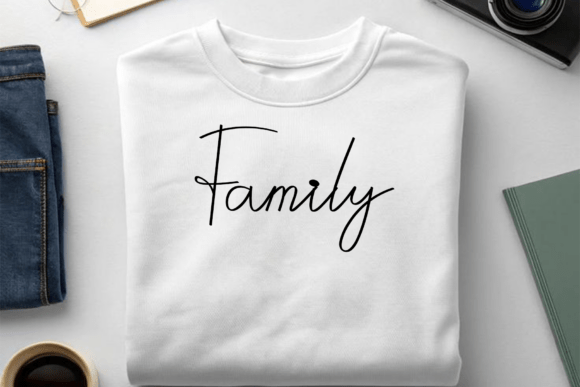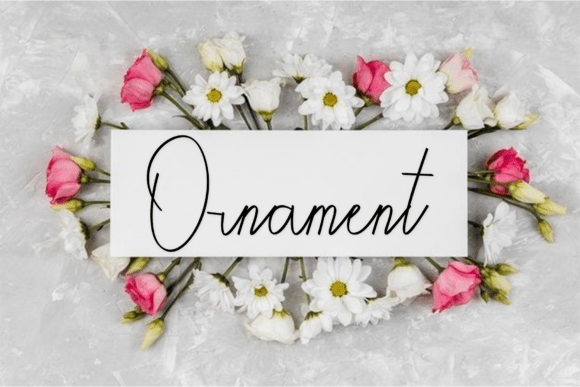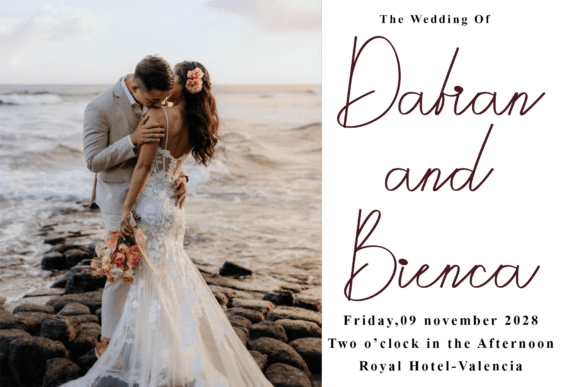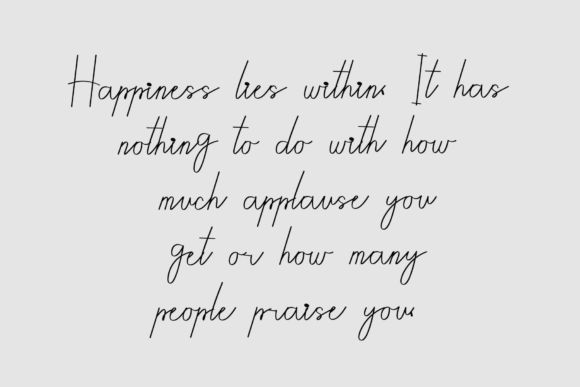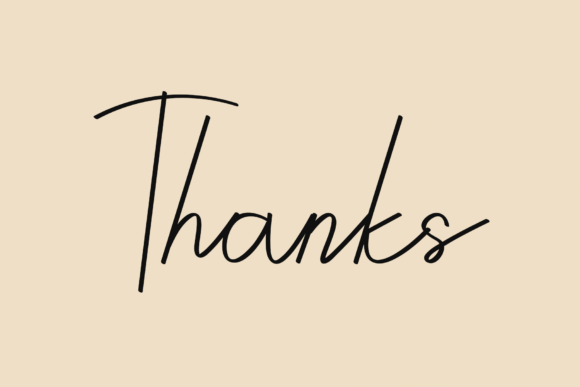
The Power of Authentic Expression
As creatives, we’ve all been there – staring at a blank page, searching for the perfect font to bring our vision to life. For me, it was a moment of pure inspiration when I stumbled upon the Authentic Font. Its sleek, minimalist script design immediately spoke to me, and I knew I had to share its unique charm with the world.
Authentic Font is a game-changer for designers looking to infuse their work with a professional, hand-lettered aesthetic. Its wide character spacing and sharp terminal swashes create a clean, signature-like quality that’s perfect for watermarks, lifestyle branding, and architectural title blocks. Whether you’re a seasoned pro or just starting out, Authentic Font is an exceptional choice for anyone seeking to elevate their designs and leave a lasting impression.
Authentic Font Key Features
- Unique Character Set: Authentic Font features a unique set of characters, including over 1000 glyphs, covering multiple languages and scripts.
- Advanced Typography: Authentic Font supports advanced typography features, such as ligatures, swashes, and contextual alternates, for enhanced typographic control.
Authentic Font Review
As a designer, I was excited to try out the Authentic Font. Here’s my honest review.
- The Authentic Font has a unique, handcrafted feel that adds a touch of personality to any design.
- The font’s script and serif elements work well together, creating a sense of balance and harmony.
- The font’s readability is excellent, even at smaller font sizes.
- The Authentic Font may not be the best choice for projects that require a clean, minimalist look.
- The font’s ligatures and connections can be inconsistent at times, which may cause some design issues.
- The font’s availability in certain languages and character sets may be limited.
Overall, I think the Authentic Font is a great choice for designers who want to add some personality and whimsy to their work. While it may have some limitations, its unique feel and excellent readability make it a great option for the right projects.
Tips for Getting the Most Out of Authentic Font
Use Authentic Font for creating a vintage or distressed look in your designs.
Experiment with different font sizes and styles to achieve a unique aesthetic.
Combine Authentic Font with other design elements, such as textures and graphics, to add depth and interest.
Authentic Font is ideal for:
Designing invitations, menus, and other print materials that require a vintage or distressed look.
Creating social media graphics and advertisements that need a unique and eye-catching font.
Adding a touch of personality to your website or blog through custom typography.
Alternatives to Authentic Font for Designers
Open Sans is a clean, modern sans-serif font that is highly legible. It is suitable for use in digital media, such as websites and mobile apps, due to its large x-height and open letterforms. Open Sans is a great alternative to Authentic Font for designers who need a clean and simple font for body text.
Comparison to Authentic Font: Open Sans has a more open feel and is more suitable for digital use, while Authentic Font is a more traditional serif font.
Lato is a modern sans-serif font that is highly versatile and can be used for a wide range of applications, from body text to headings. It has a strong x-height and a large range of weights, making it a great choice for designers who need a font that can adapt to different contexts.
Comparison to Authentic Font: Lato has a more modern feel and a larger range of weights than Authentic Font, making it a better choice for designers who need a font that can be used in a variety of contexts.